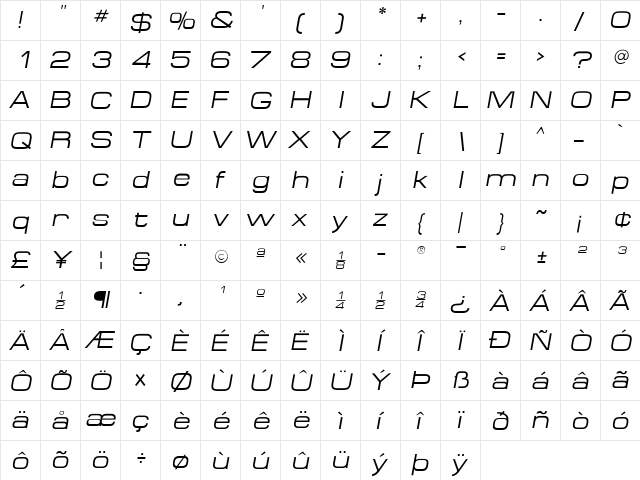
MicroExtendFLF Regular
Design Context for MicroExtendFLF Typeface
MicroExtendFLF offers clean, dependable letterforms without strong stylistic allegiance, making it a practical choice for designers who need flexibility.